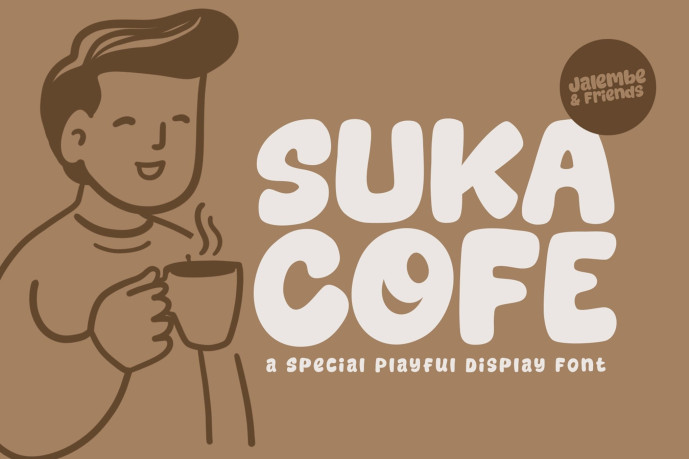
Suka Cofe Display Font
Designer: Khurasan
Suka Cofe Display Font is a fun, bold display typeface designed with a cheerful theme for your creative projects. This font is perfect for logos, branding, greeting cards, posters, and any design that needs a touch of personality and joy.